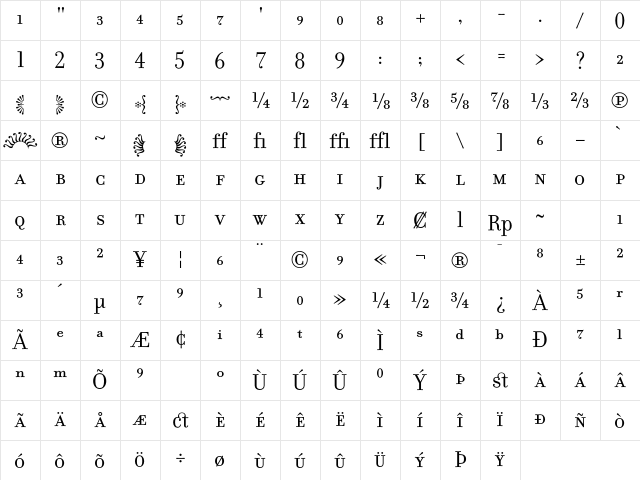
Filosofia Fractions
Style: Fractions
Complete Filosofia Fractions glyph index. Displaying only characters natively supported by Filosofia Fractions font.
Design Context for Filosofia
Filosofia is a composed and adaptable typeface that performs quietly and consistently across a wide range of design contexts.